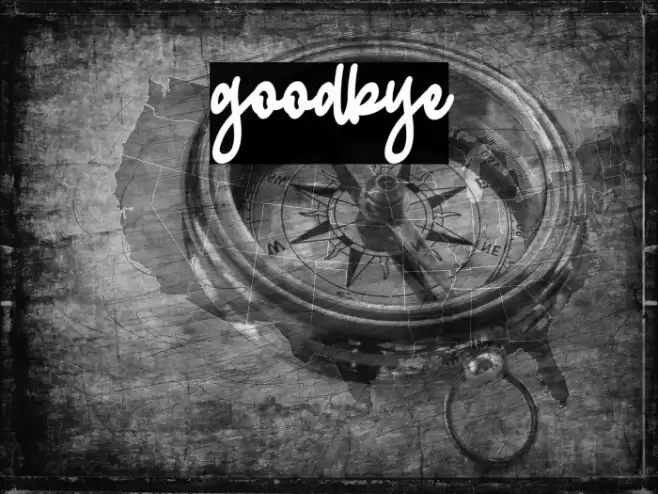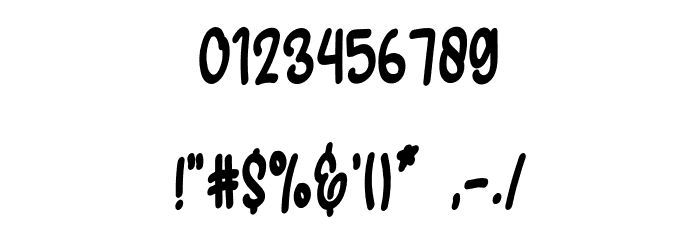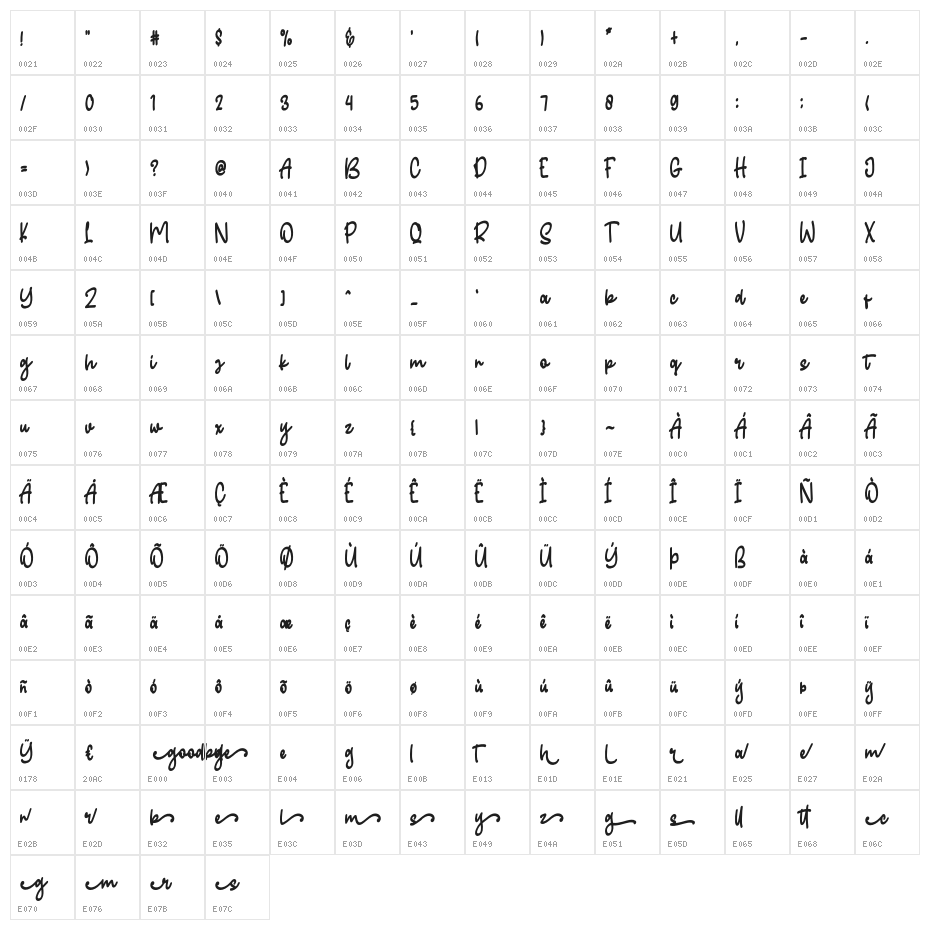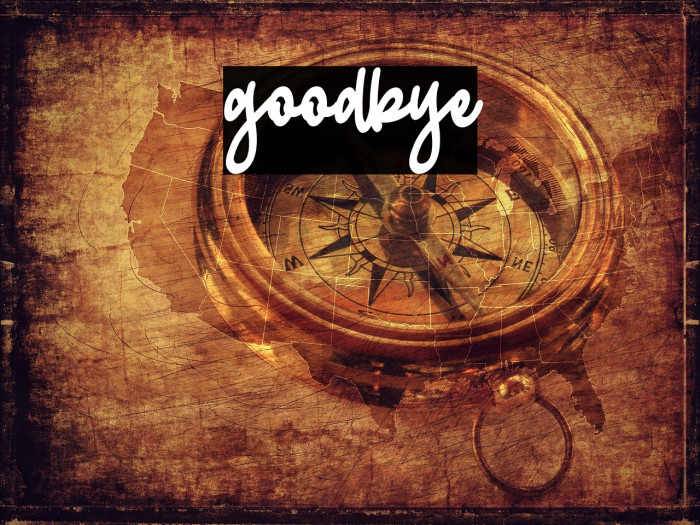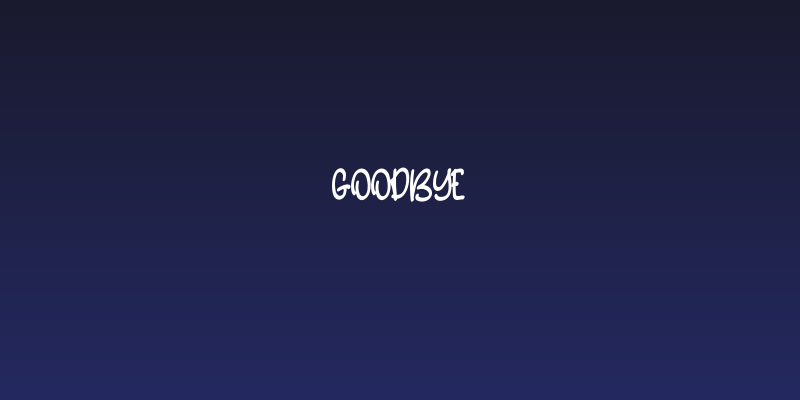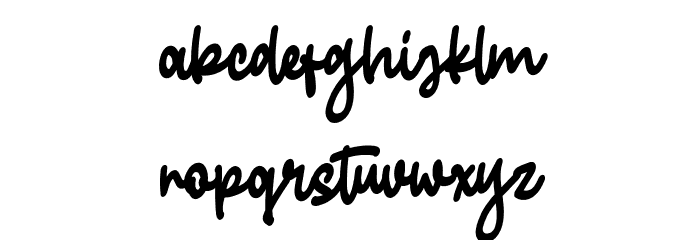
goodbye Font
goodbye Description
This font features a playful and casual handwritten style with a smooth, flowing appearance. The letters are slightly slanted, giving it a dynamic and informal feel. The uppercase characters are bold and prominent, while the lowercase letters maintain a consistent flow with rounded edges. Numbers and special characters are designed to match the overall aesthetic, ensuring a cohesive look. The font's organic and friendly nature makes it suitable for projects that require a personal touch.
A playful, casual handwritten font with a smooth, flowing style from Uncategorized fonts.
- Proposed Projects: Ideal for greeting cards, invitations, personal branding, and social media graphics.
- Overall Style: Casual
- Use Case: Logos, Headlines, Informal Text